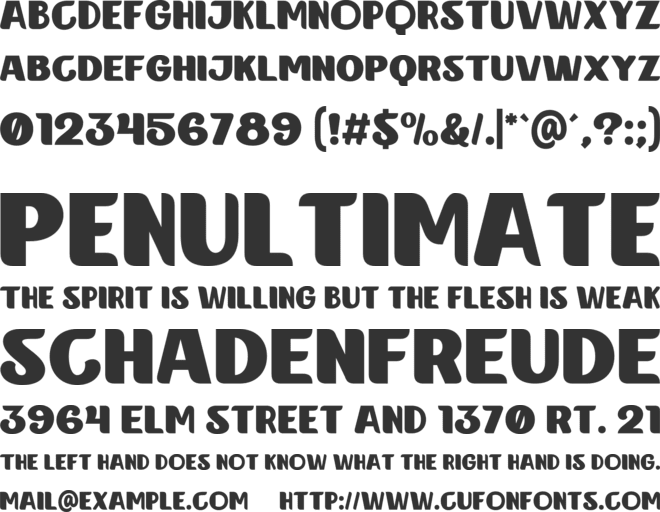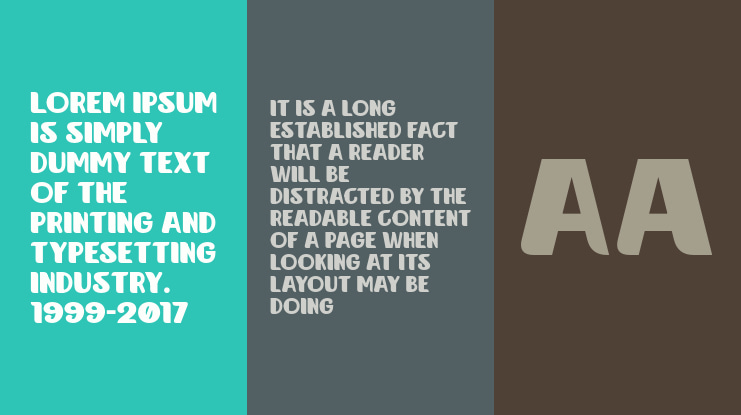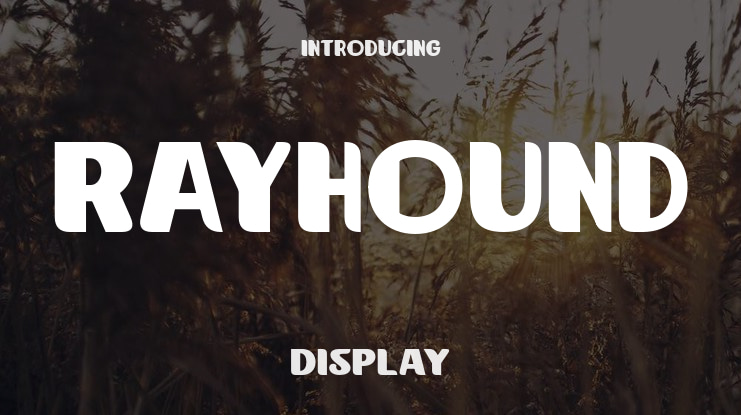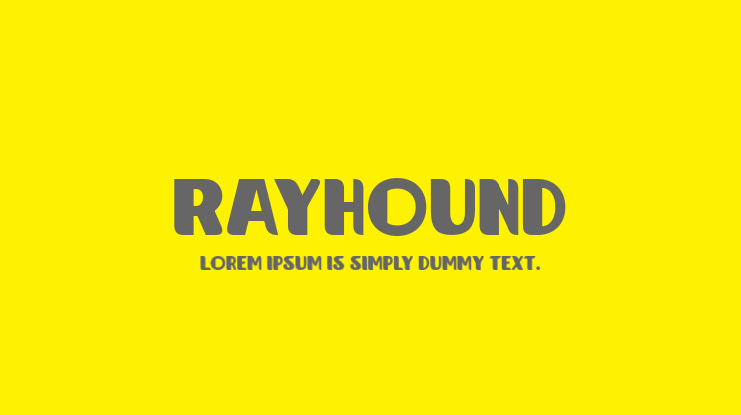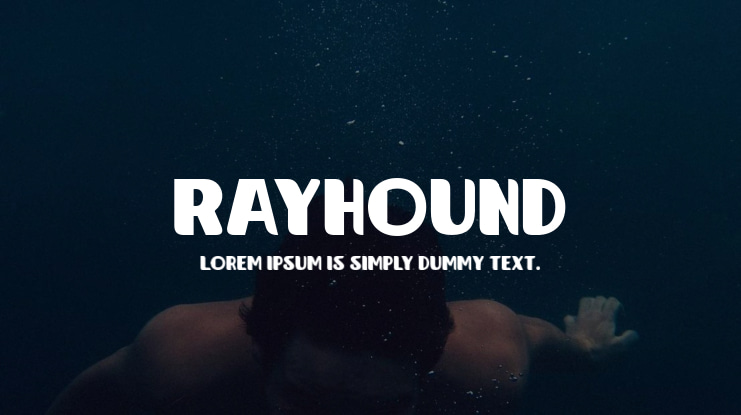
Rayhound Font
Introducing "Rayhound" - a carefully selected sans serif display font. Created to captivate your audience, Rayhound is crafted to elevate your headlines, adding a unique touch to your designs and enhancing your brand's identity. Its modern style brings energy to posters and turns ordinary brochures into exciting visual adventures. Explore the power of Rayhound in your projects to refresh your design experience.